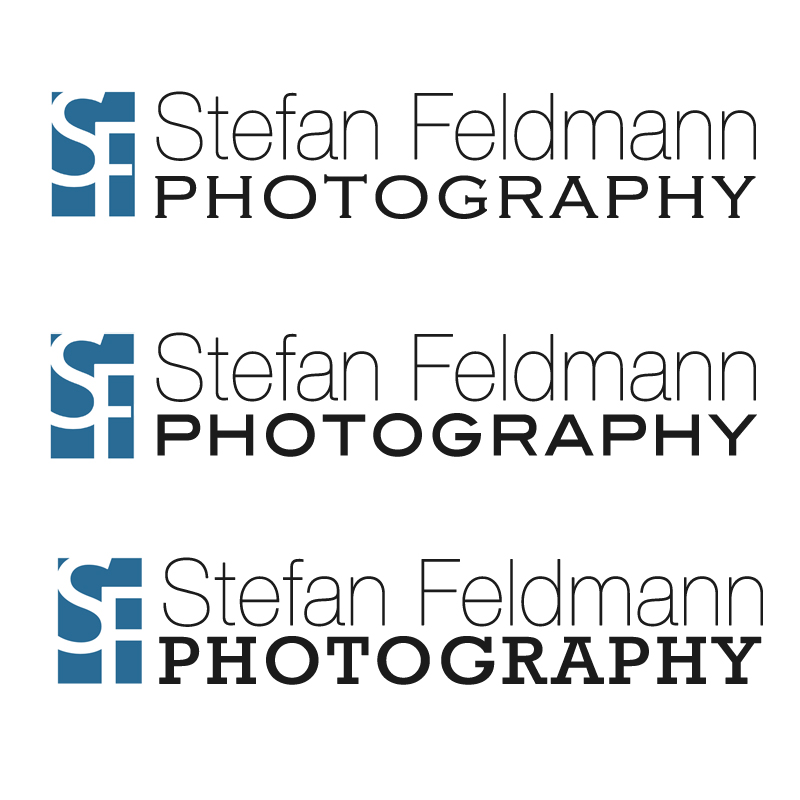
I'm coming up with a new logo and banner for my photography site and am down to three fonts. I was wondering if the pros could give me some feed back on my three choices.
I'm looking for a clean professional, modern look and I read that it is a good idea to have different fonts for the name and subject. I like the Stefan Feldmann part, yet am having troubles with the font choice for Photography. I personally prefer the first example, however my parents liked the second. I think the font used in the second one is too much like the font used on the Stefan Feldmann hence why I like the first example.
Second, the SF blue logo is something I've been working on to go with the text, not necessarily in the current position though. I think it works, but I'm just a guy with PS.
Strictly in terms of typography, I have never liked mixing serif and san serif fonts in a logo, so the middle one is my only option.
Nice job. However, I do not think No. 1 is your best choice. I am trying to decide between No.2 and 3, I am liking 2 better I think - but on the other hand, 3 has something to it...
I think, even though they're both sans-serif fonts, in No. 2 you have enough contrast between the name and the title, since one is light and one is strong.
Good start. However, I tend to agree with Dale. Your use of typeface, colour and form should give your logo the desired appearance of it's business. Not sure I am seeing that clearly in your choices of type with the exception of number 2 (which is the one I like the best for his reason as well).
Ask youself what your logotype is tying to acheive or portray ie. modern, trendy, possibly web/internet photography based company that would likely work well with a Sans font or a traditional, classic appeal that would warrant more of a serif font.
I would advise you to keep the type families together (as you did in number 2), this will help to portray a stonger, clearer message in terms of your brand/name/business.
My photography I would like to gear toward photojournalism, travel, people's stories and to some part architecture and commercial photography. Therefor I want the logo to reflect this which was why I was playing around with the serif as I felt it might give the logo a more old, traditional feel reflecting my work.
#2 Definitely has the most potential in my opinion. The biggest issue with it I think is the blue box. In some cases the "type touches edge, bleeds into backround" thing works quite nice. In this instance it really bothers my eyes. Pay close attention to the small blue speck that is cut off in the upper left, using both your direct and peripheral vision. It's very awkward, and it's a problem you might consider as you rework what you have.
Hi, I really think you need to rethink this a lot. The options have three typefaces in one logo. I don't mean this in a harsh way but they are very poor logos. If creating a logo is not something you do day to day then i'd stick with keeping it simple.
If you want to play around with what you've got take a look at the two lines of text. You'll see the top line is stretched vertically and the bottom line stretched horizontally. This make the whole design look like it's pulling apart.
My personal recomendation would be to drop the 'SF'. Make the whole thing white text on a nicely toned blue box and chose a single typeface. Put the name in roman/regular and the 'photography' in bold. And if you need to stretch the word 'photography' use letter spacing – don't stretch the whole thing.
Good start and concept. Funny enough, for 4 years I worked for a marketing company that specifically tailored to professional photographers. I've done more photography logos than imaginable!
Only one piece of critique. Just say no to sans. Especially when used with other fonts it just hurts.
Honestly I would stick to one font. Utilize bold and semi-bold to give the words some separation.